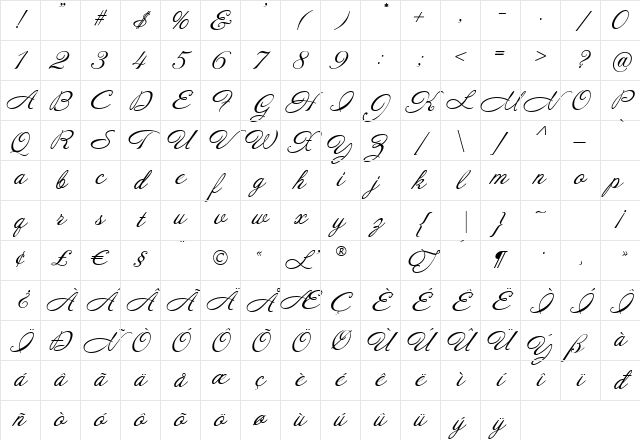
AnnabelleJF Regular
Design Context for AnnabelleJF
AnnabelleJF is a composed and adaptable typeface that performs quietly and consistently across a wide range of design contexts.